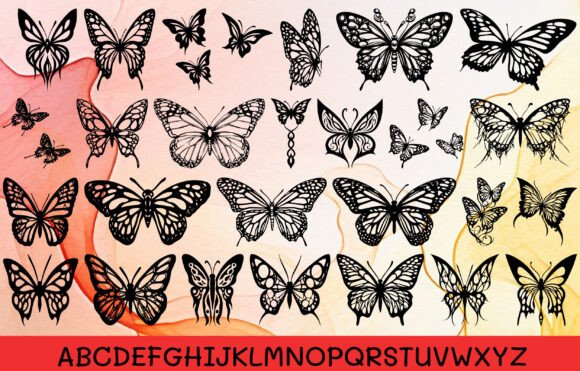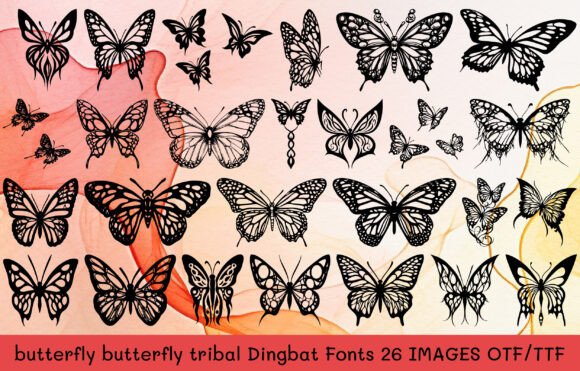
The Butterfly Effect: How a Tribal Font Can Transform Your Designs
I’ll never forget the time I was working on a project for a client who wanted a unique, tribal-inspired font to match their brand’s edgy vibe. I spent hours scouring the internet for the perfect font, but nothing seemed quite right. That was until I stumbled upon the Butterfly Tribal Dingbat Fonts. This digital product features 26 unique tribal-style butterfly designs in A-Z format, and it’s been a game-changer for my design work.
- ✨ Unique and creative designs: Each butterfly font is carefully crafted to add a touch of personality to your projects.
- 🌈 Versatile: Perfect for a wide range of creative projects, from crafting and design to printing and digital media.
While the Butterfly Tribal Dingbat Fonts are amazing, there are a few things to keep in mind:
- ⚠️ Limited character set: Since it’s a dingbat font, it only includes 26 butterfly designs, one for each letter of the alphabet.
- 🤔 Not suitable for body text: These fonts are best used for headlines, titles, or decorative elements, rather than large blocks of text.
The Designer Inspiration
The Butterfly Tribal Font was created by a designer who’s passionate about tribal art and culture. The inspiration came from the beauty and symbolism of butterflies in various cultures, combined with the edginess of tribal designs. The result is a unique font that’s perfect for adding a touch of personality to your projects.
| Font Name | Butterfly Tribal Font |
| Author | MOMAT THIRTYONE |
| Is the font suitable for body text? | No, the Butterfly Tribal Font is best used for headlines, titles, or decorative elements, rather than large blocks of text. |